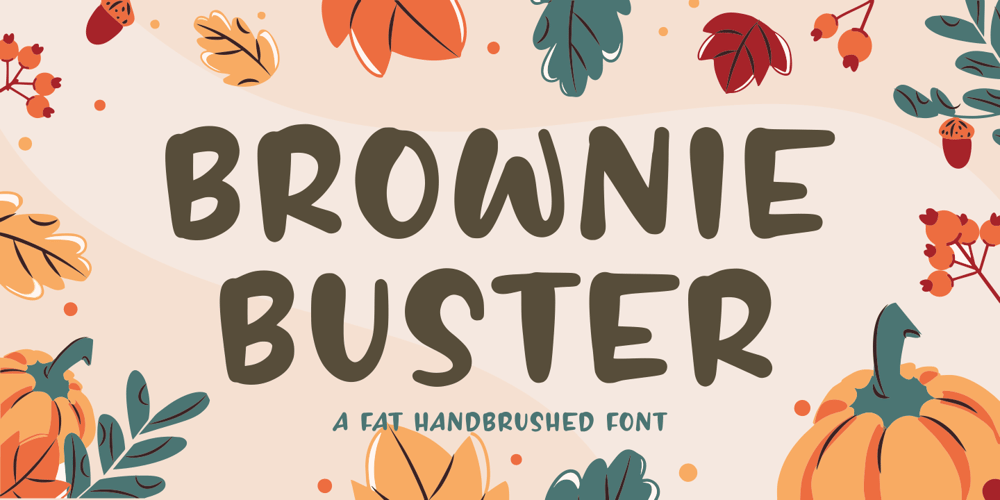
Brownie Buster
Brownie Buster font
Brownie Buster Font Family was designed by Restu Angga and published by Balpirick. Brownie Buster contains 1 styles and family package options. Introducing by Balpirick Studio.Proudly Present, BROWNIE BUSTER Font.BROWNIE BUSTER is a Fat Handbrushed Font.Brownie Buster is a fat hand-brushed font. It is perfect for product packaging, branding project, magazine, social media, wedding, or just used to express words above the background.This font includes TTF and OTF, BROWNIE BUSTER also multilingual support.Enjoy the font, feel free to comment or feedback, send me PM or email.Thank you!